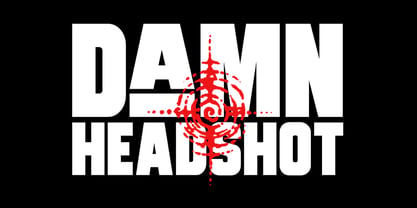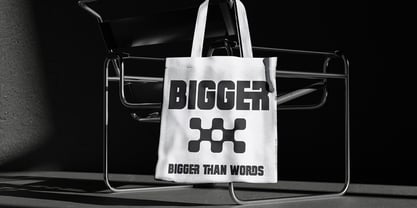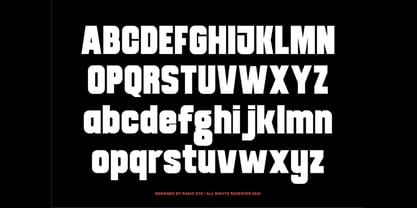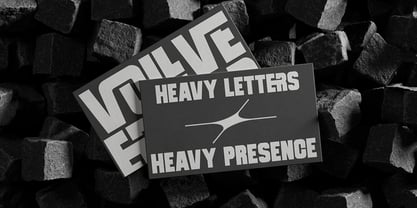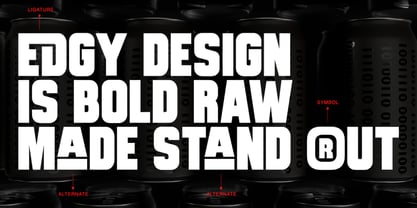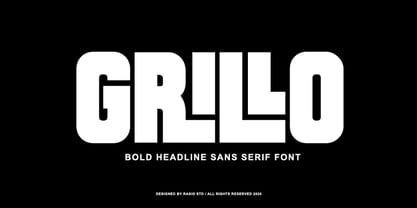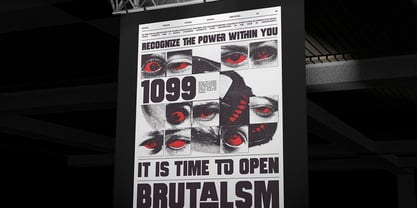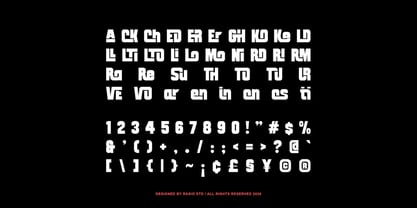
Grillo
von Rasio Studio
Die Schriftfamilie Grillo wurde von Fajar Indra entworfen und von Rasio Studio veröffentlicht. Grillo enthält 1 Stile. Mehr über diese Familie
Grillo is a bold sans serif display font designed for strong visual impact and confident messaging. Featuring heavy letterforms, compact proportions, and rounded edges, Grillo delivers a solid and contemporary appearance ideal for headlines, posters, logos, and branding materials. The font includes uppercase and lowercase letters, numerals, punctuation, and essential symbols. Grillo is designed for projects that require strong emphasis and visual authority. It is ideal for headlines, posters, branding systems, logo design, editorial titles, promotional graphics, and marketing materials where bold typography plays a central role.
Designer: Fajar Indra
Foundry: Rasio Studio